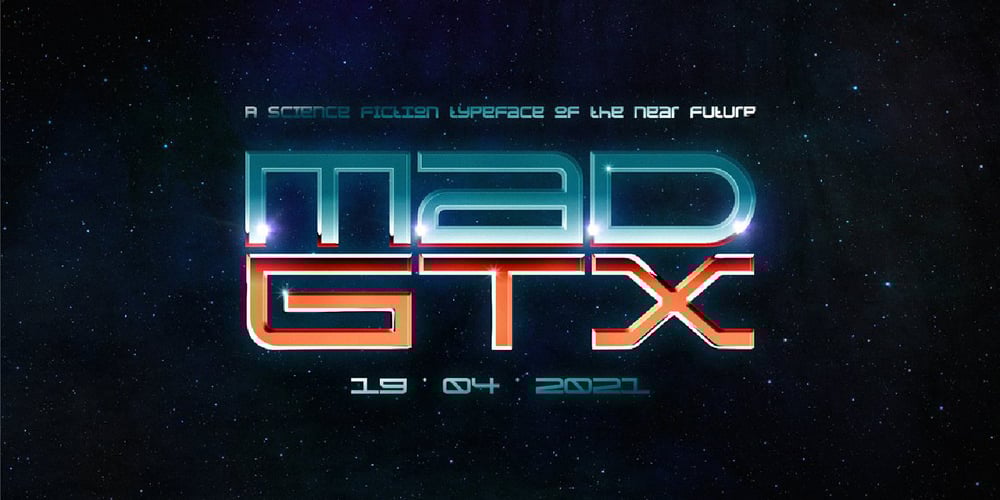
Mad.gtx
Mad.gtx font
Mad.gtx Font Family was designed by Ihsan Khairul Lazuardi and published by Juru Rancang Studio. Mad.gtx contains 12 styles and family package options. MAD-GTX is an abbreviation of the Sanskrit word “Madyagantang,” meaning sky. It’s a sci-fi themed font family comprising 12 styles, featuring uppercase multilingual letters, alternate options (activated by caps lock), numbers, and punctuation.This typeface is crafted to resonate with the dynamic digital era, employing modular techniques. It’s exceptionally well-suited as a crucial component in a variety of digital designs.